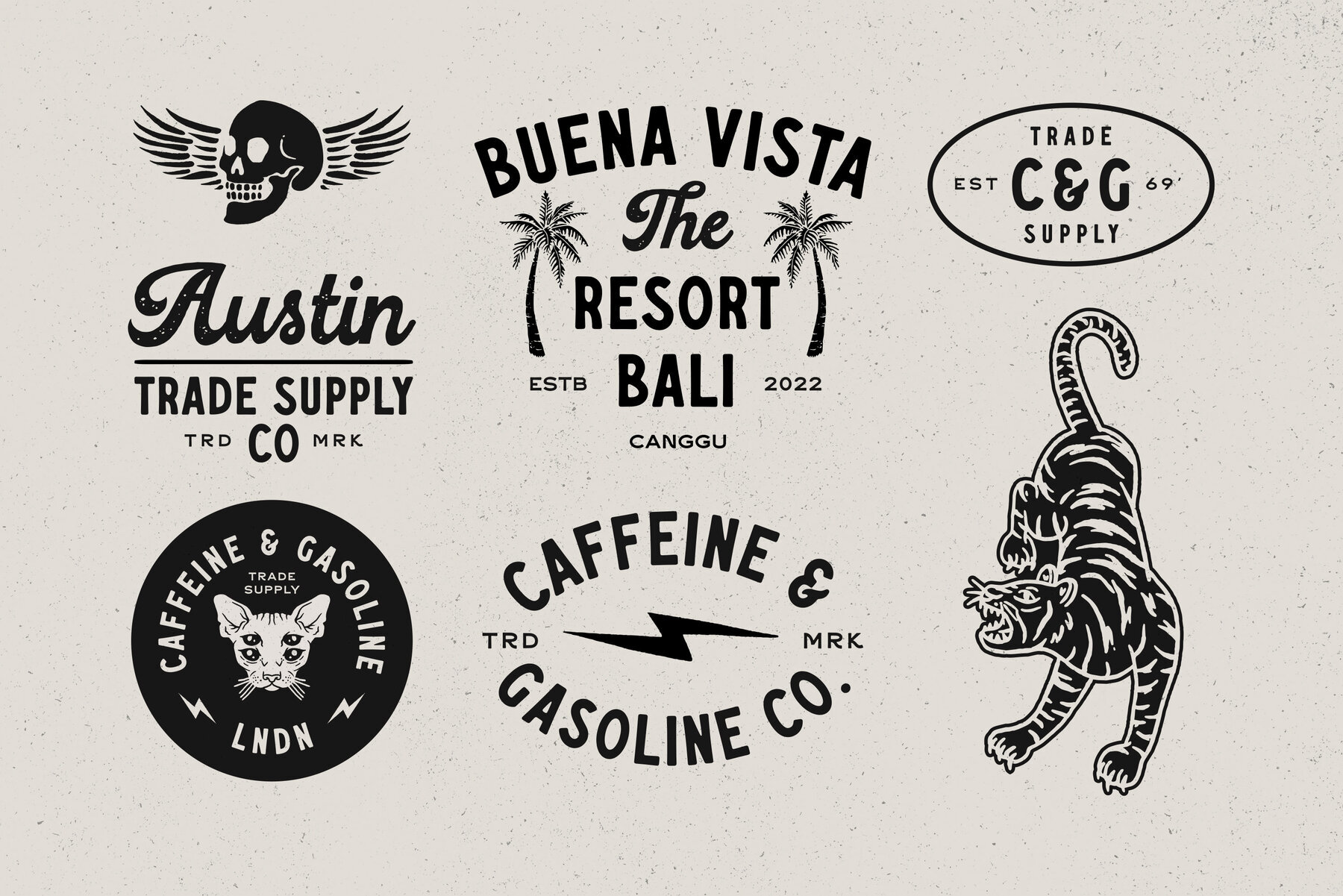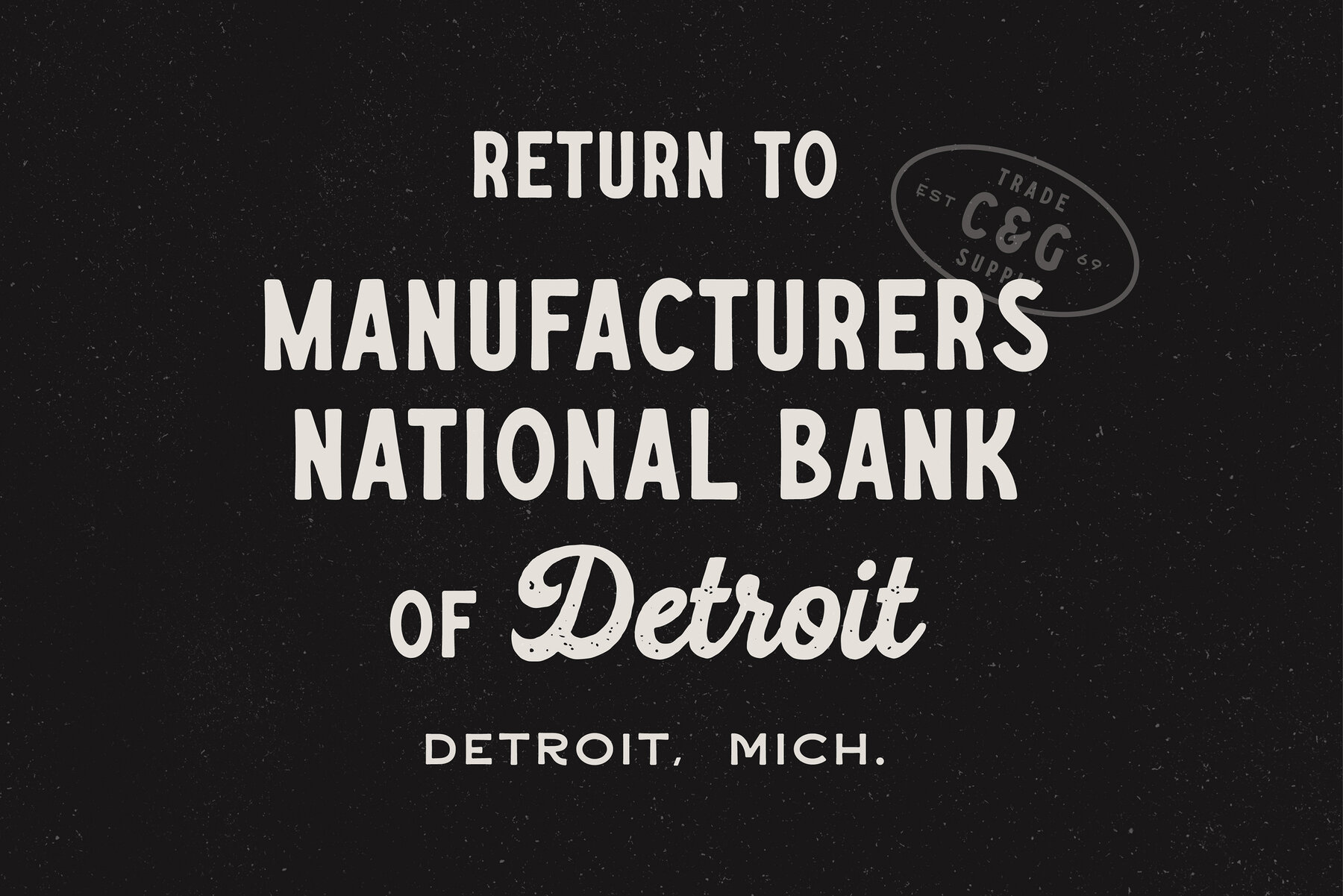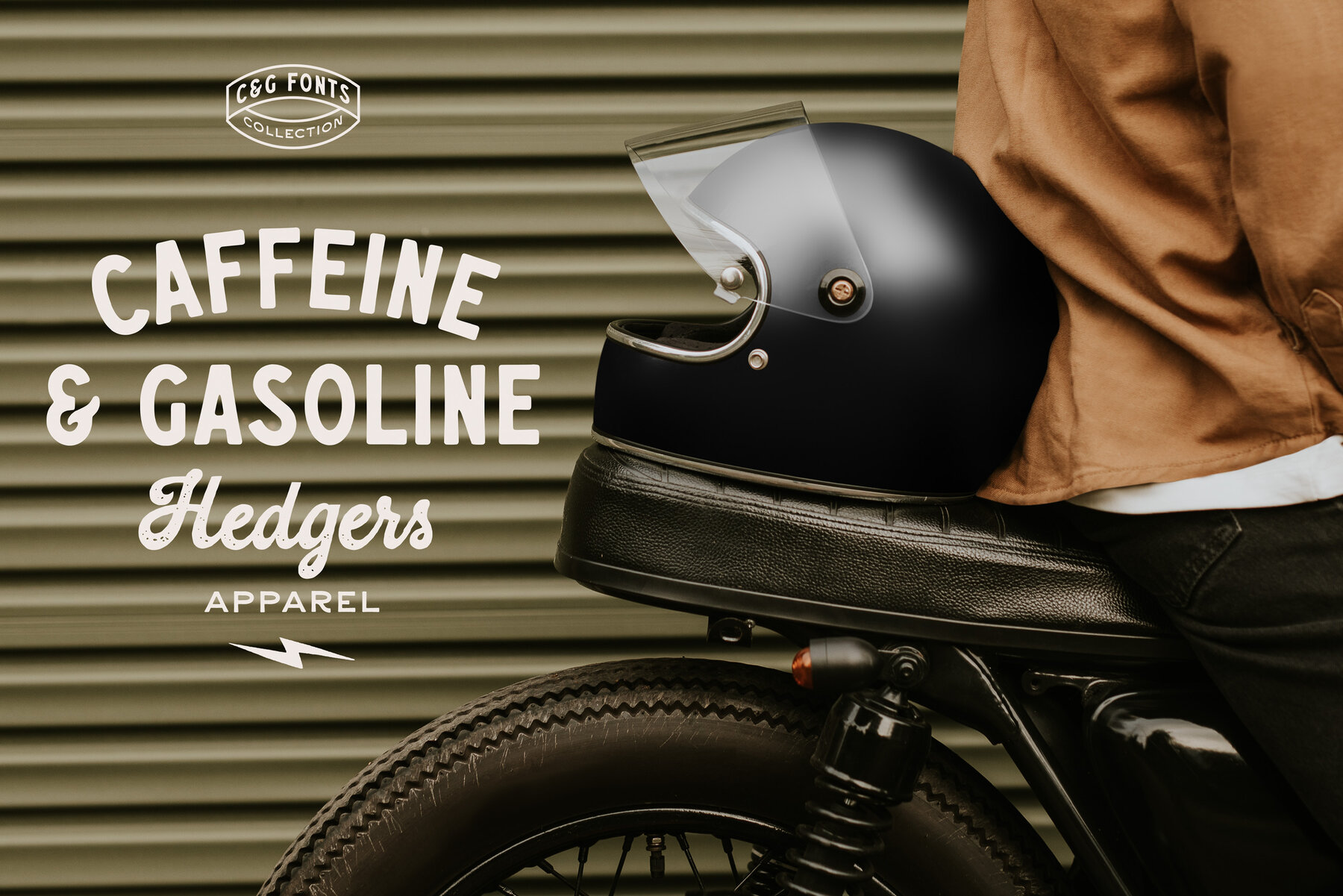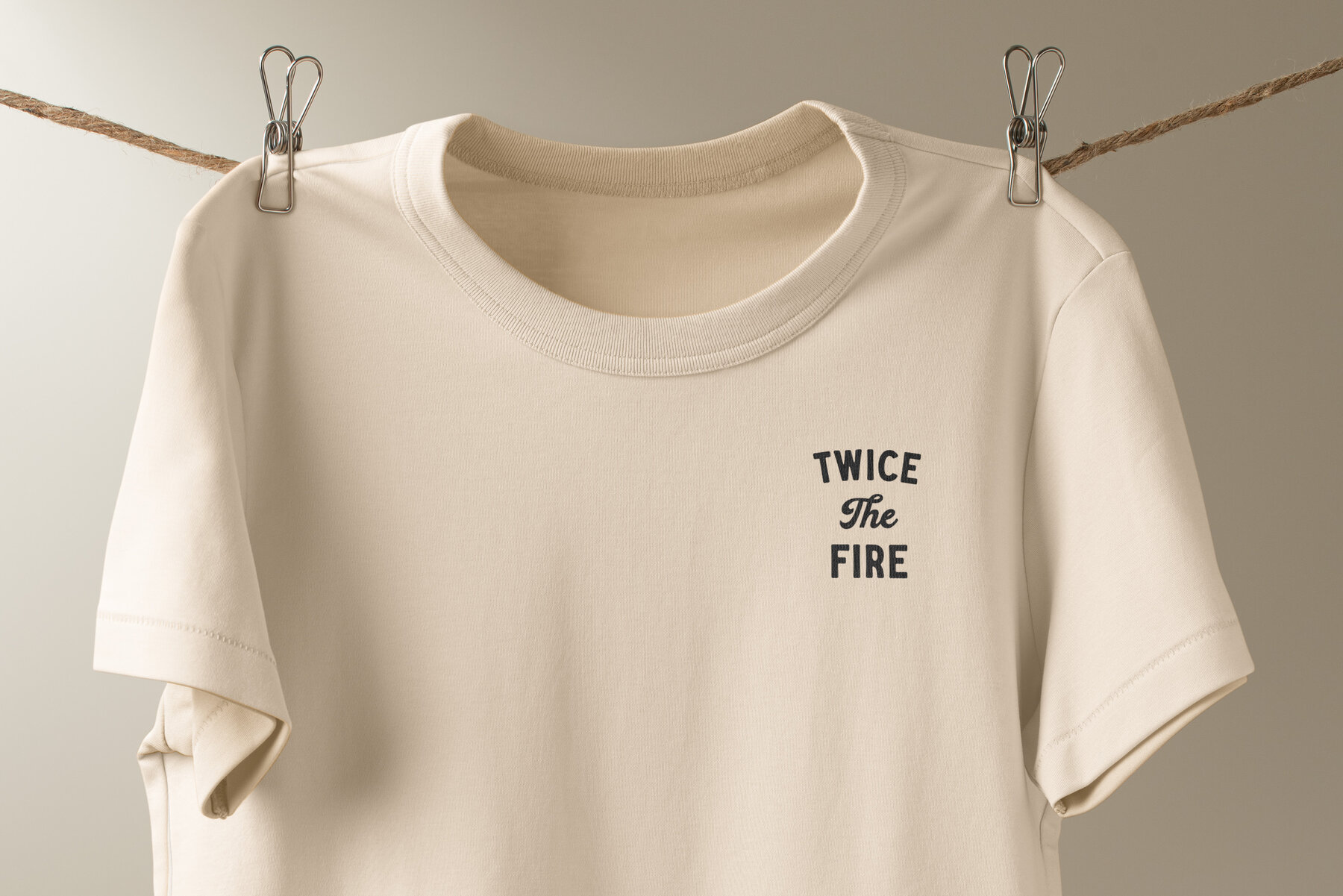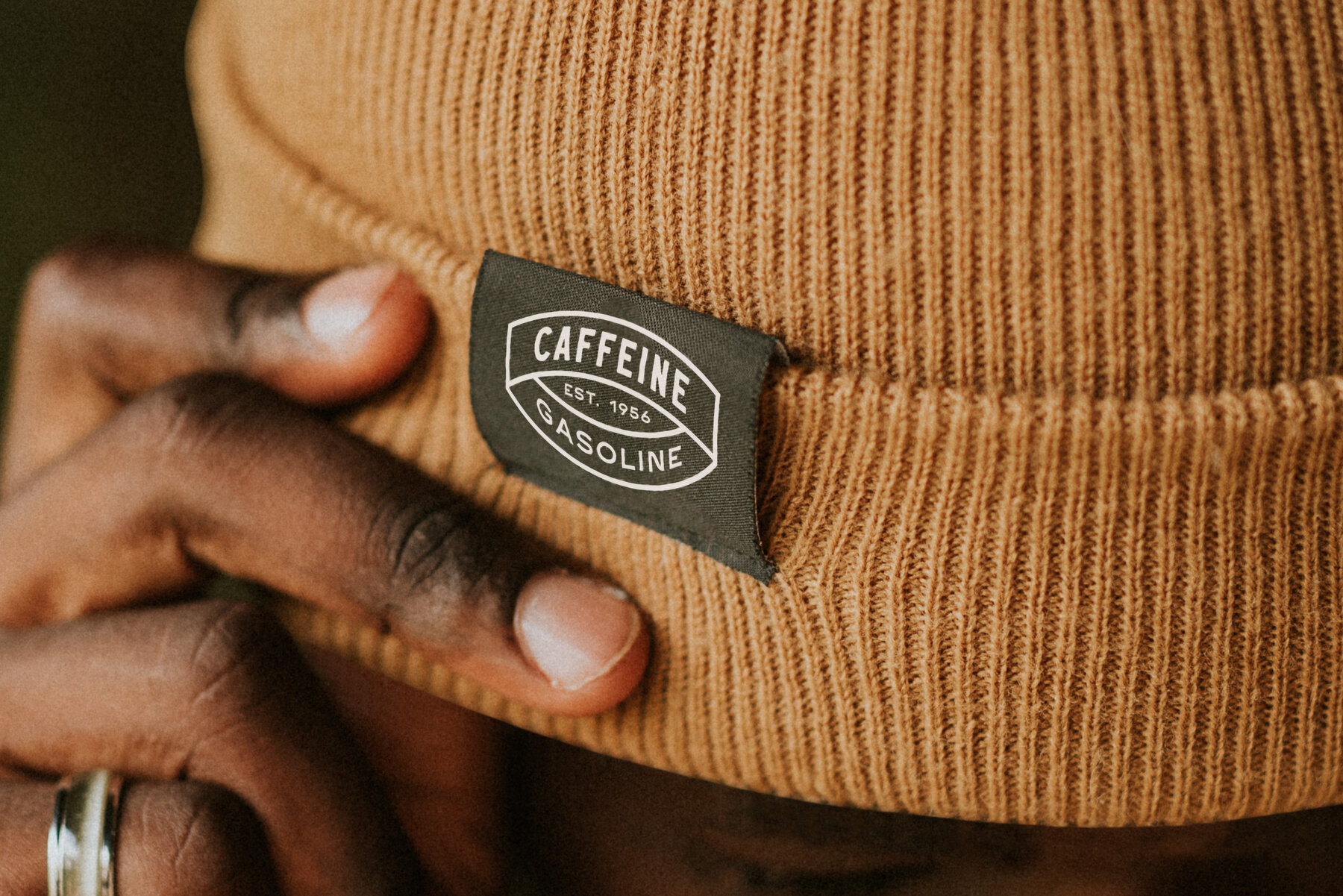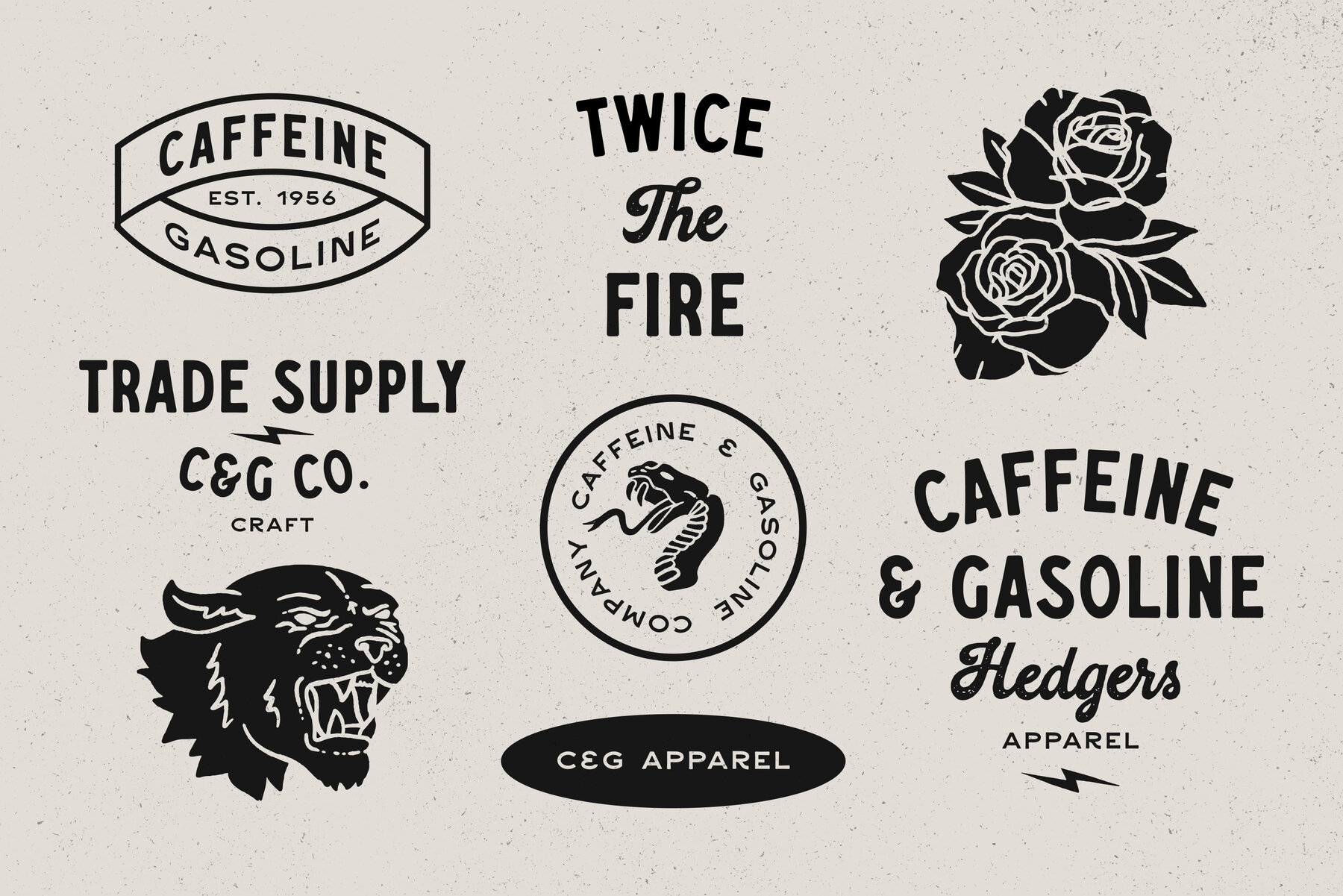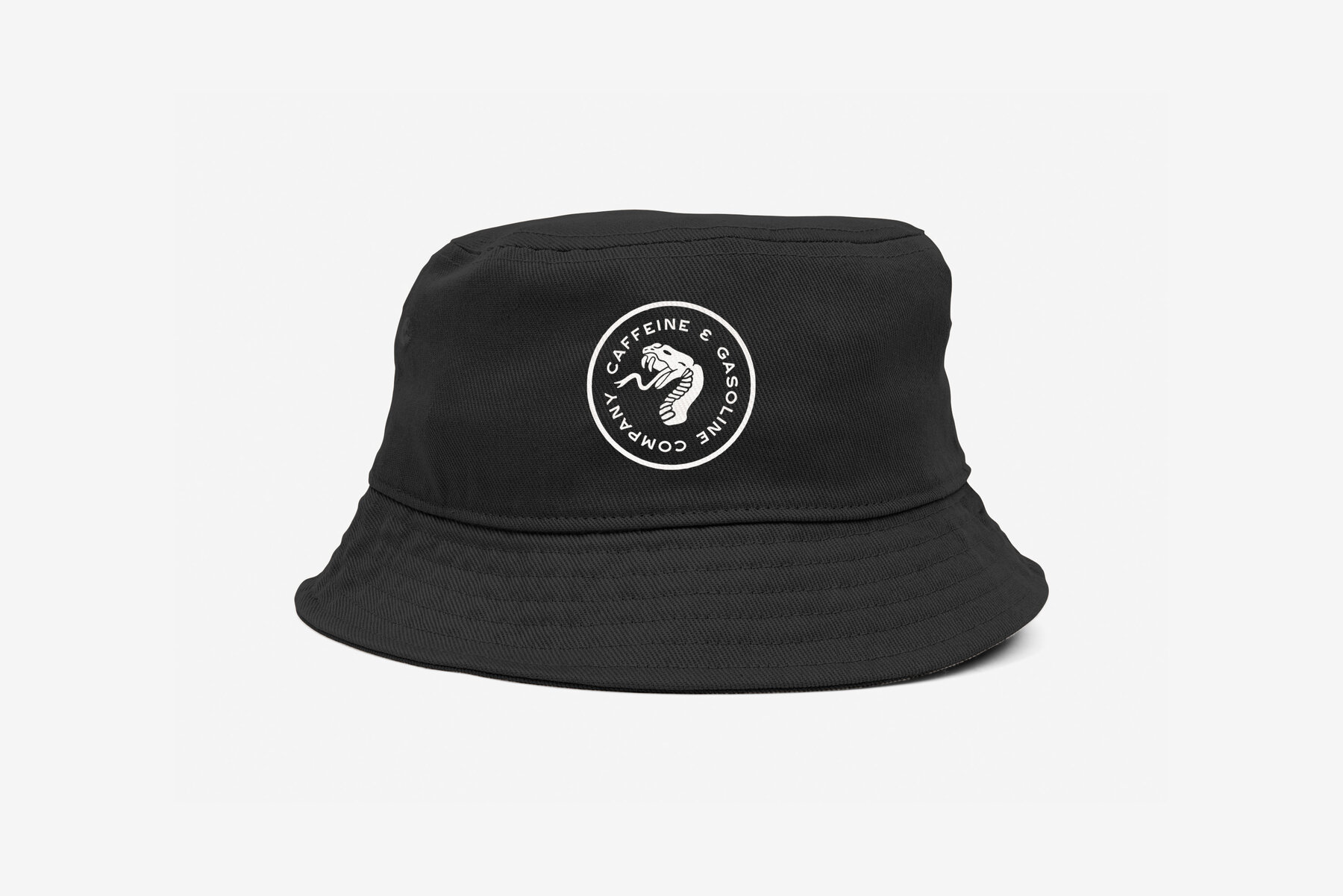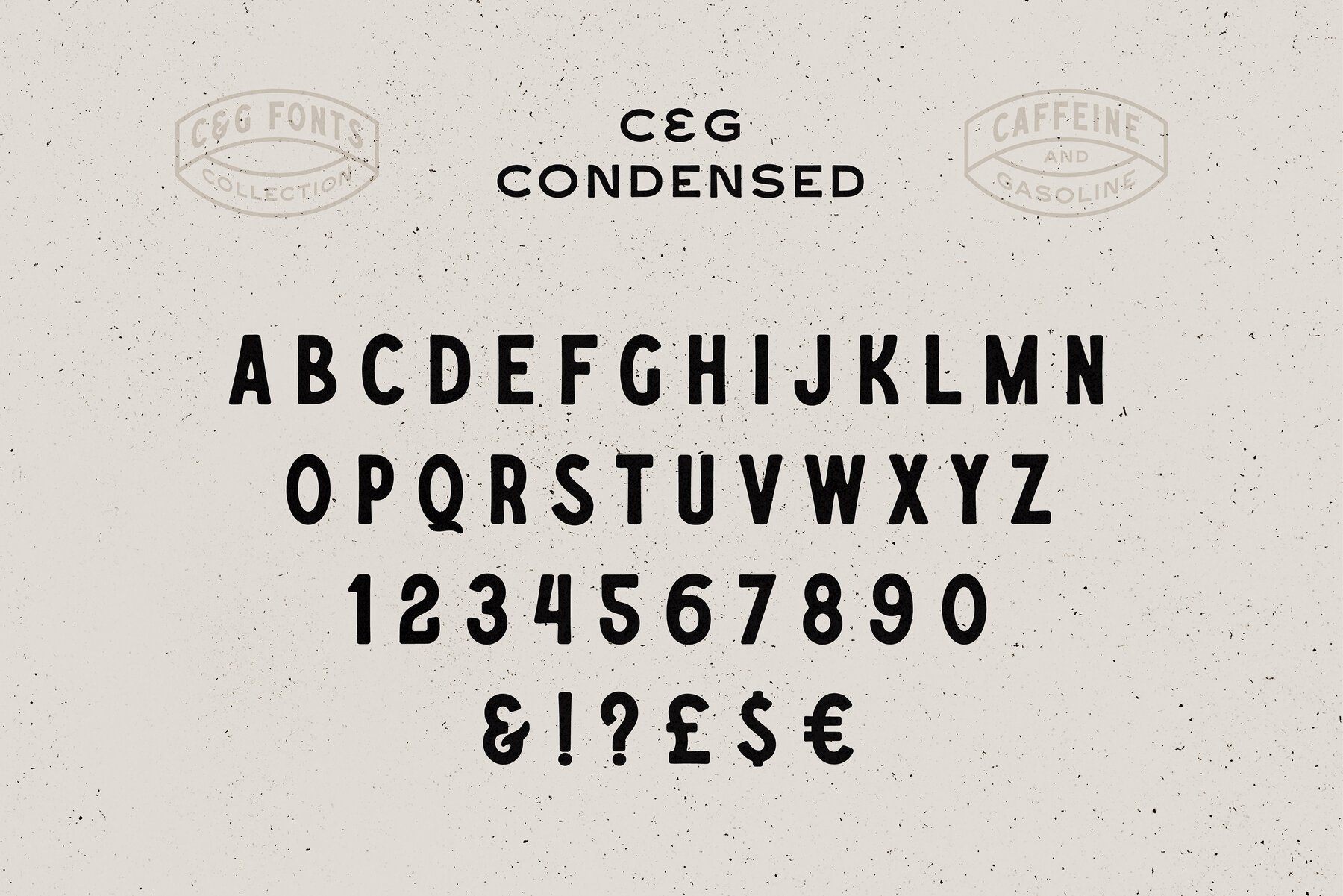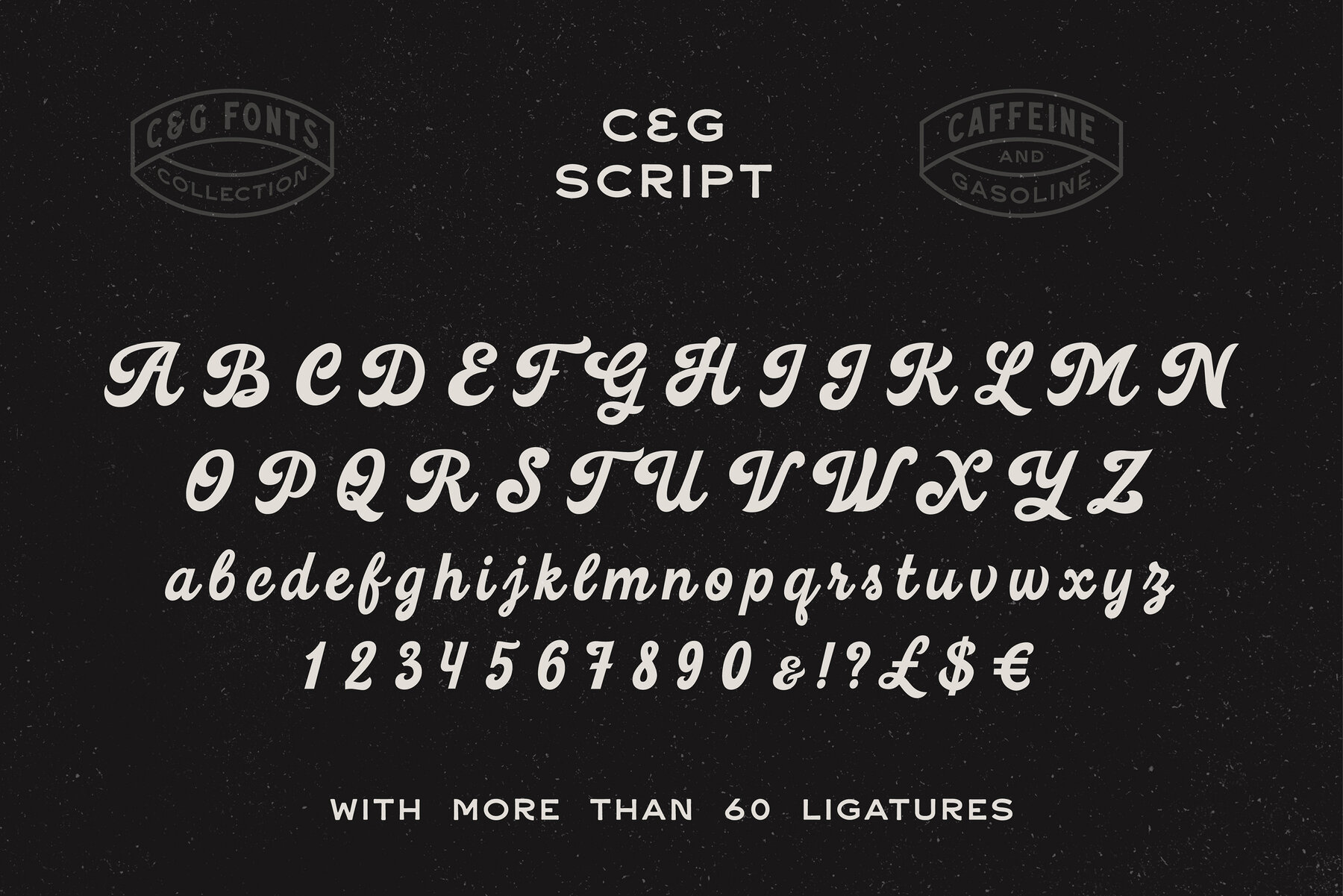
Caffeine and Gasoline Font
C&G is a vintage-inspired font trio tailored for creating standout apparel designs, prints, social media content, product labels, and more. This bundle contains all caps Sans Serif, all caps Condensed, and hand-made Script with both Regular & Aged versions, boasting over 60 ligatures. Additionally, enjoy 10 free illustrations and 10 free premade logo templates to enhance your next design project.Caffeine & Gasoline Fonts: Vintage-Inspired Trio